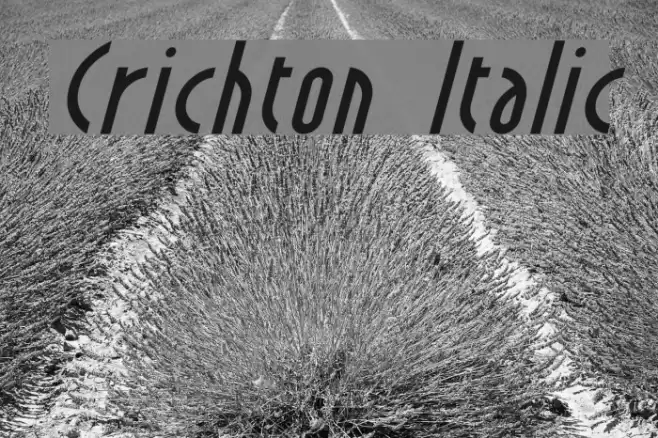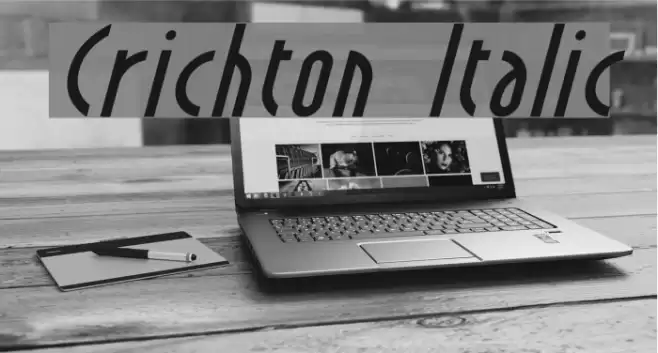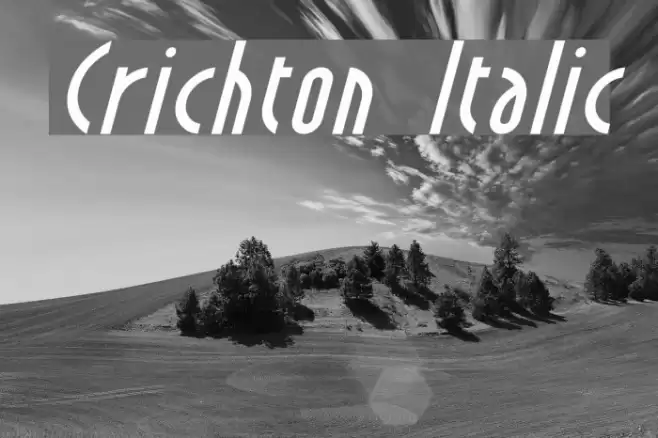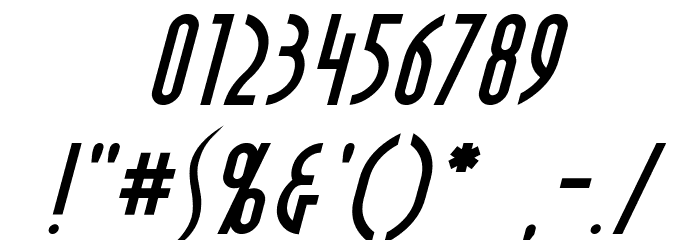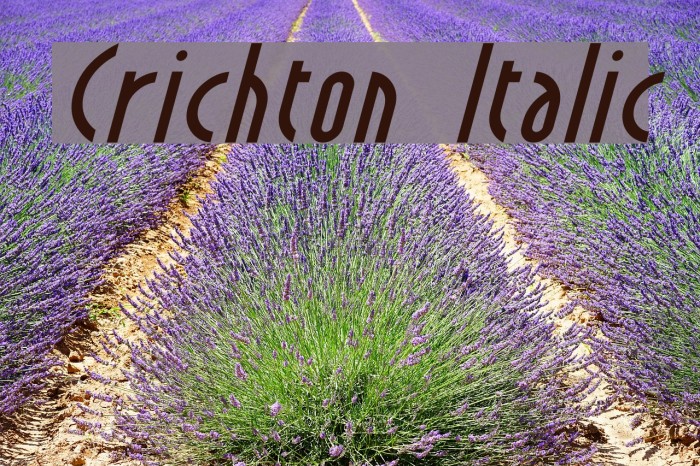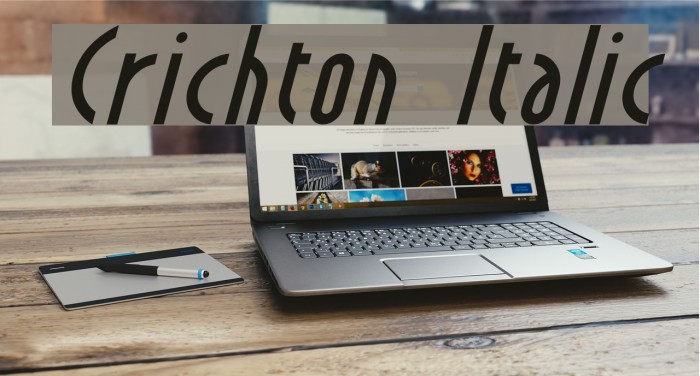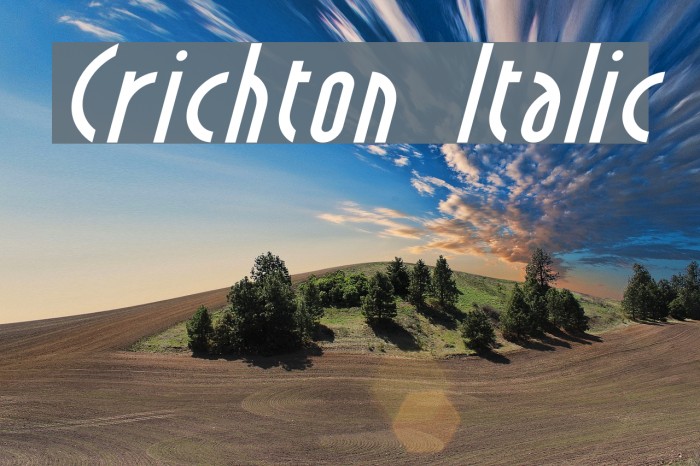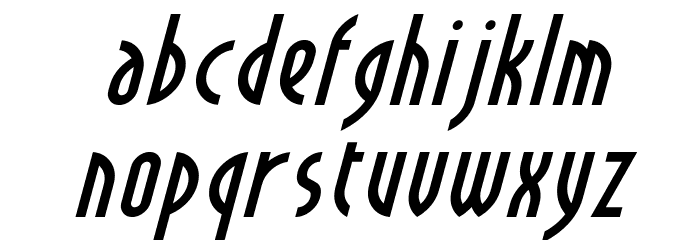
Crichton Italic Font
Crichton Italic Description
This font features a dynamic and energetic italic style with a forward-leaning slant, giving it a sense of motion and speed. The characters are bold and angular, with sharp edges and a modern flair. The uppercase letters are tall and narrow, while the lowercase letters maintain a consistent style, enhancing readability. The numerals are distinct and match the overall aesthetic, providing a cohesive look. Special characters are designed to complement the font's unique style, making it versatile for various applications.
A bold, italic font with a modern, angular design from Uncategorized fonts.